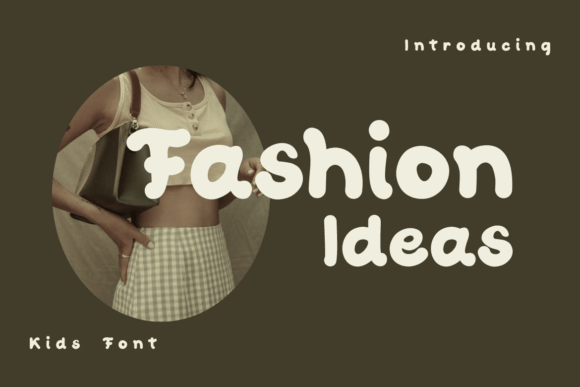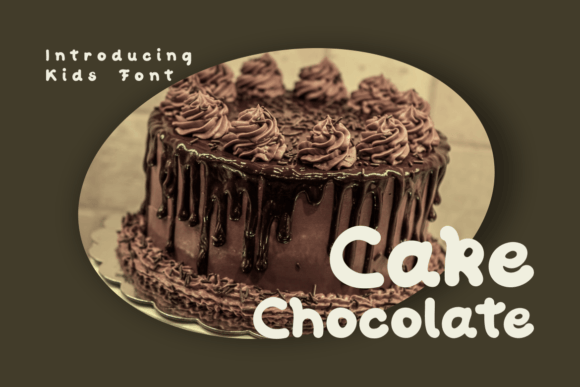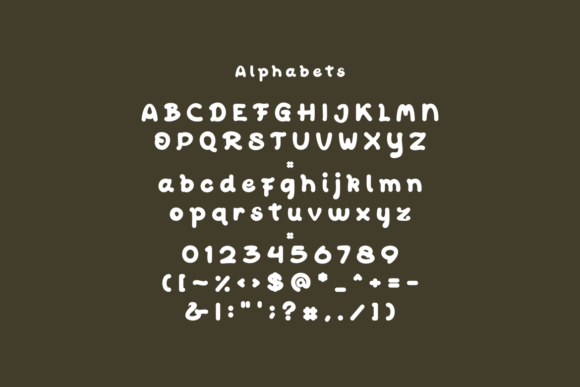
Introducing Depica Kids Font: Elevate Your Designs with Elegance and Sophistication
In the world of design, fonts play a pivotal role in conveying messages, evoking emotions, and creating lasting impressions. For designers and crafters seeking a font that embodies elegance, modernity, and class, Depica Kids Font is an exceptional choice. This versatile display font is not only perfect for fashion, apparel projects, signatures, album covers, logos, branding, magazines, social media, and advertisements but also complements a wide range of other projects. In this article, we’ll dive into the features, benefits, and creative applications of Depica Kids Font, exploring how it can elevate your designs to new heights.
Depica Kids Font: A Blend of Elegance and Modernity
Depica Kids Font stands out with its unique blend of elegance and modernity, making it an ideal choice for designers who aim to create sophisticated and trendy designs. Its classy appearance is well-suited for projects that demand a high level of refinement, such as luxury brand logos, high-end fashion magazines, and stylish apparel designs. The font’s modern aesthetic ensures that your designs feel current and appealing to contemporary audiences.
One of the key advantages of Depica Kids Font is its versatility. It can be seamlessly integrated into various design projects, including:
- Fashion and Apparel: Create stunning fashion logos, brand names, and taglines that exude style and sophistication.
- Signatures and Logos: Add a touch of elegance to signatures, logos, and branding materials, making them memorable and impactful.
- Album Covers and Music: Use Depica Kids Font to design captivating album covers, music posters, and event flyers that appeal to music lovers.
- Magazines and Publications: Enhance the visual appeal of magazines, newspapers, and digital publications with this stylish font.
- Social Media and Advertisements: Make your social media posts, ads, and promotional materials stand out with a font that grabs attention.
Why Choose Depica Kids Font?
There are several reasons why Depica Kids Font should be your go-to choice for your design projects:
- Elegant and Modern Design: The font’s elegant and modern design ensures that your projects look sophisticated and appealing.
- High Versatility: Its versatility allows you to use it across a wide range of projects, from fashion and music to digital media and print.
- Easy to Read: Despite its stylish appearance, Depica Kids Font remains easy to read, making it perfect for both headings and body text.
- Customizable: You can easily customize the font to fit your project’s needs, adjusting size, color, and style to match your design vision.
Tips for Using Depica Kids Font
To maximize the impact of Depica Kids Font in your designs, consider the following tips:
- Mix and Match: Combine Depica Kids Font with other fonts to create a unique and visually appealing design.
- Play with Sizes: Experiment with different font sizes to create a hierarchy of information and draw attention to key elements.
- Adjust Colors: Choose colors that complement your brand or project’s aesthetic, ensuring consistency and harmony.
- Consider Context: Tailor your design to the specific context, ensuring that the font and overall design resonate with your target audience.
Depica Kids Font is a powerful tool for designers and crafters looking to infuse their projects with elegance, modernity, and class. Its versatility, readability, and customization options make it an excellent choice for a wide range of applications. Whether you’re working on fashion designs, music projects, digital media, or print materials, Depica Kids Font can help you create stunning and effective designs. Embrace the elegance and sophistication of Depica Kids Font and elevate your designs to new heights of creativity and impact.